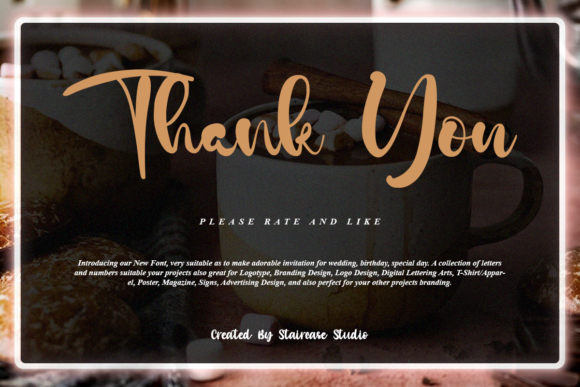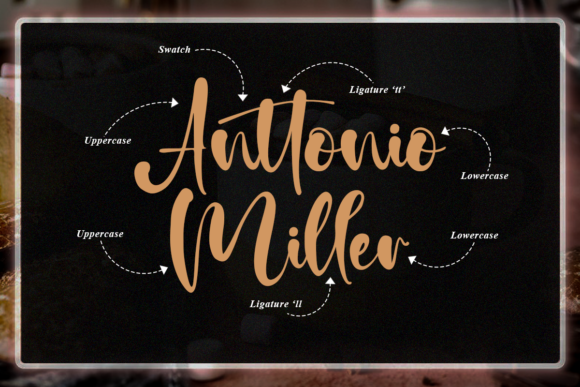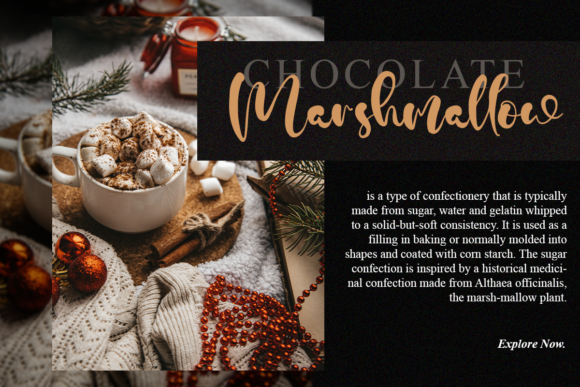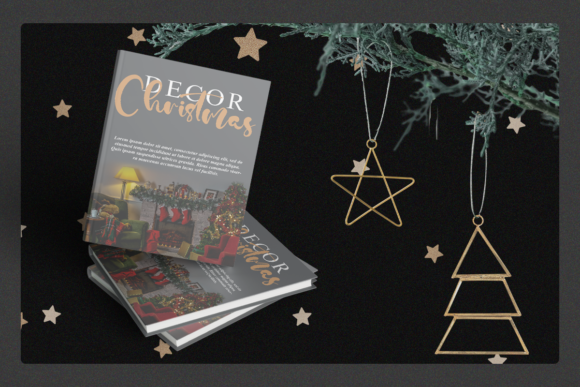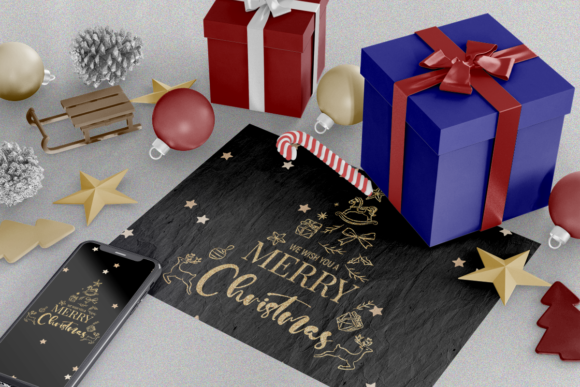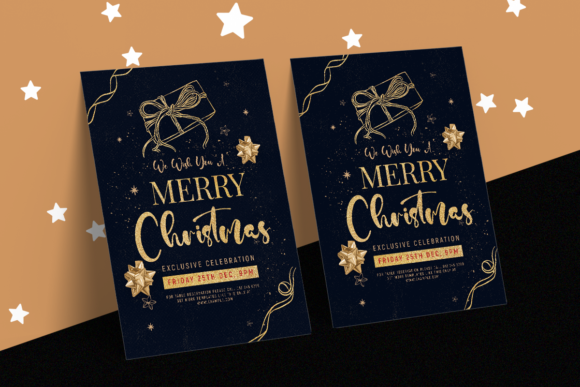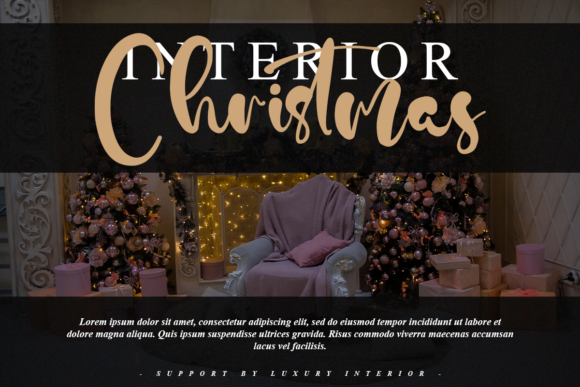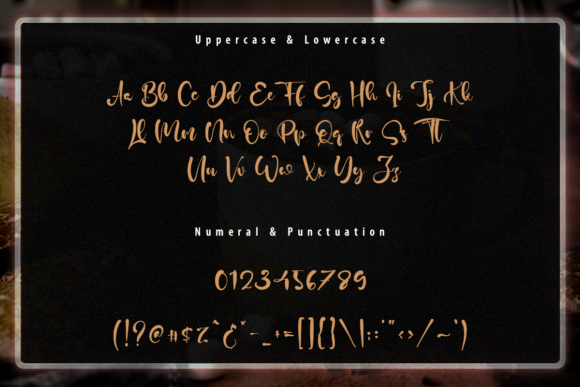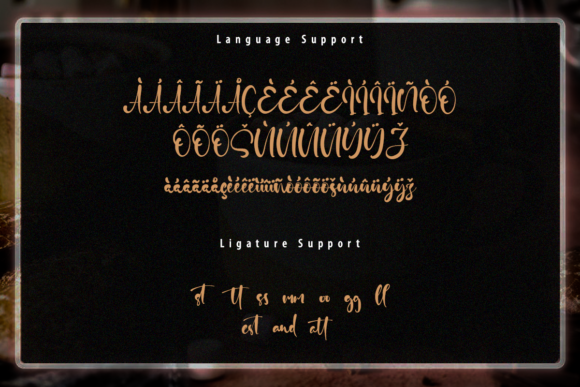
Hot Cocoa Font
About Hot Cocoa Font
Hot Cocoa is a beautiful and light handwritten font with a unique feel and a stunning impact. It will add a luxury spark to any design project that you wish to create!